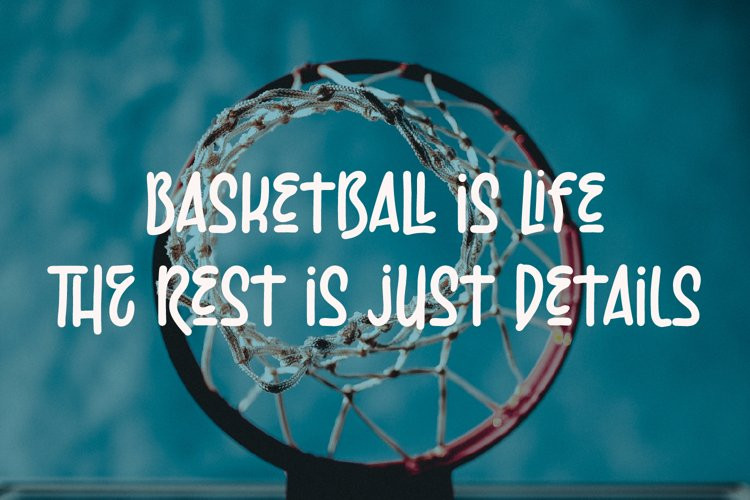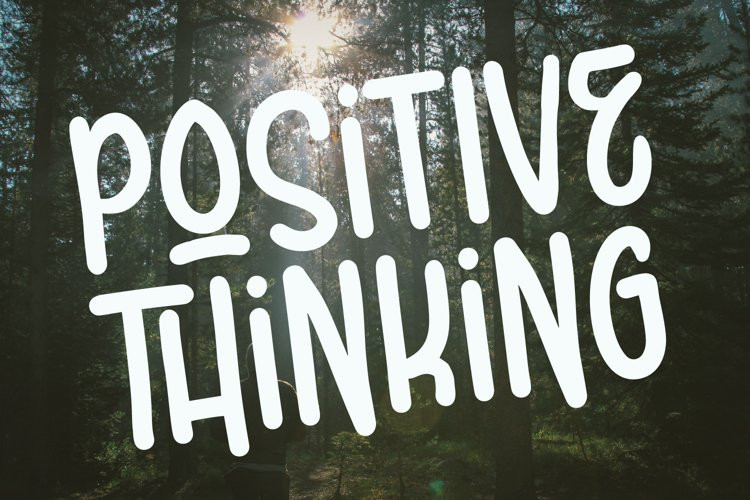
Body Friend Font
Body Friend FontBody Friend is a cute Display Sans Serif script typeface with a playful look. This type of font is very suitable to be applied especially to logos, and various other formal forms such as invitations, labels, logos, magazines, books, greeting cards, packaging, fashion, make up, stationery, novels, labels, covers or whatever.